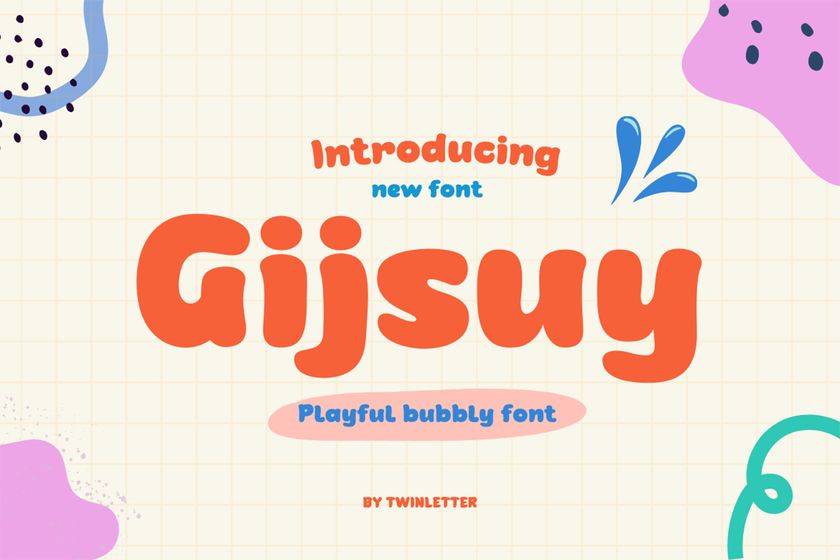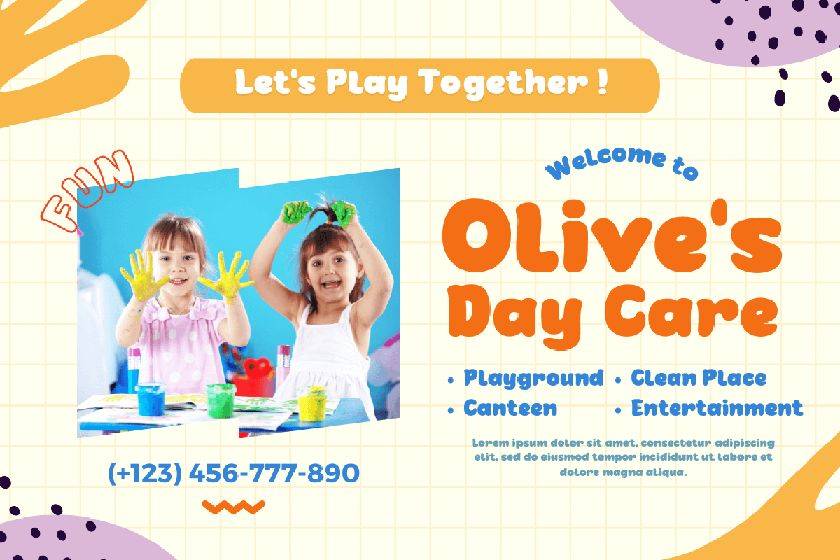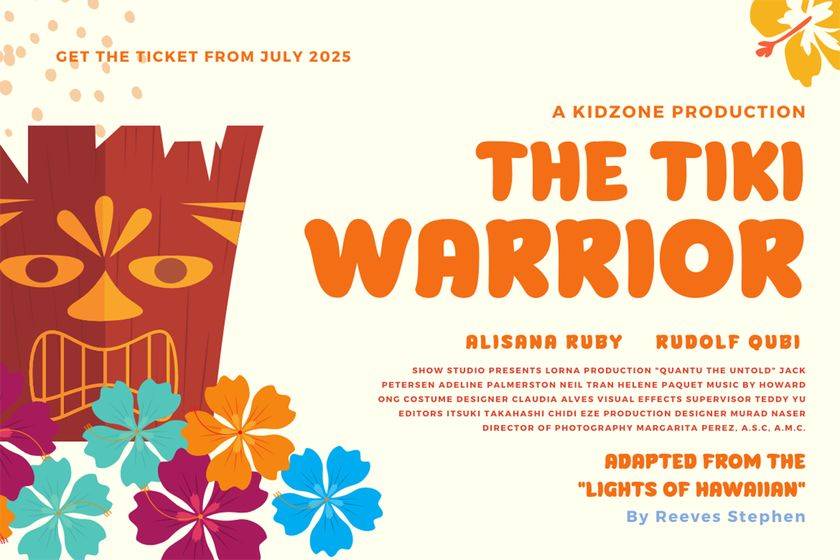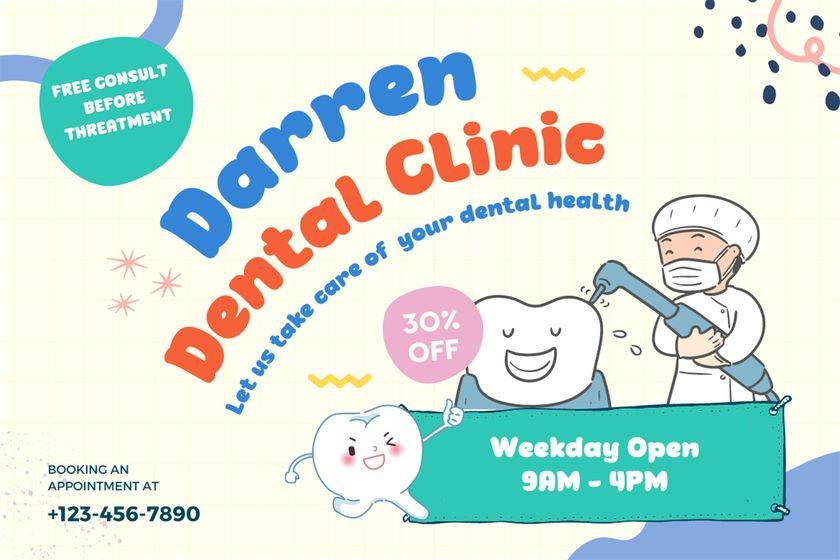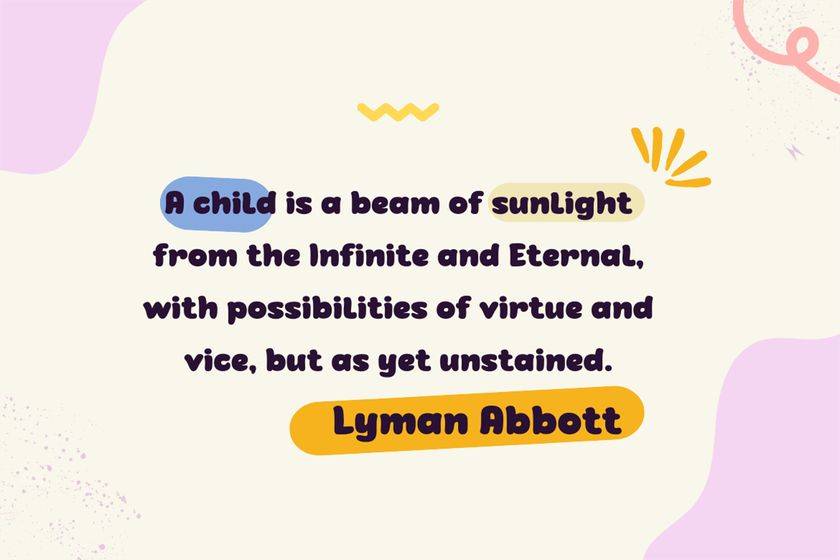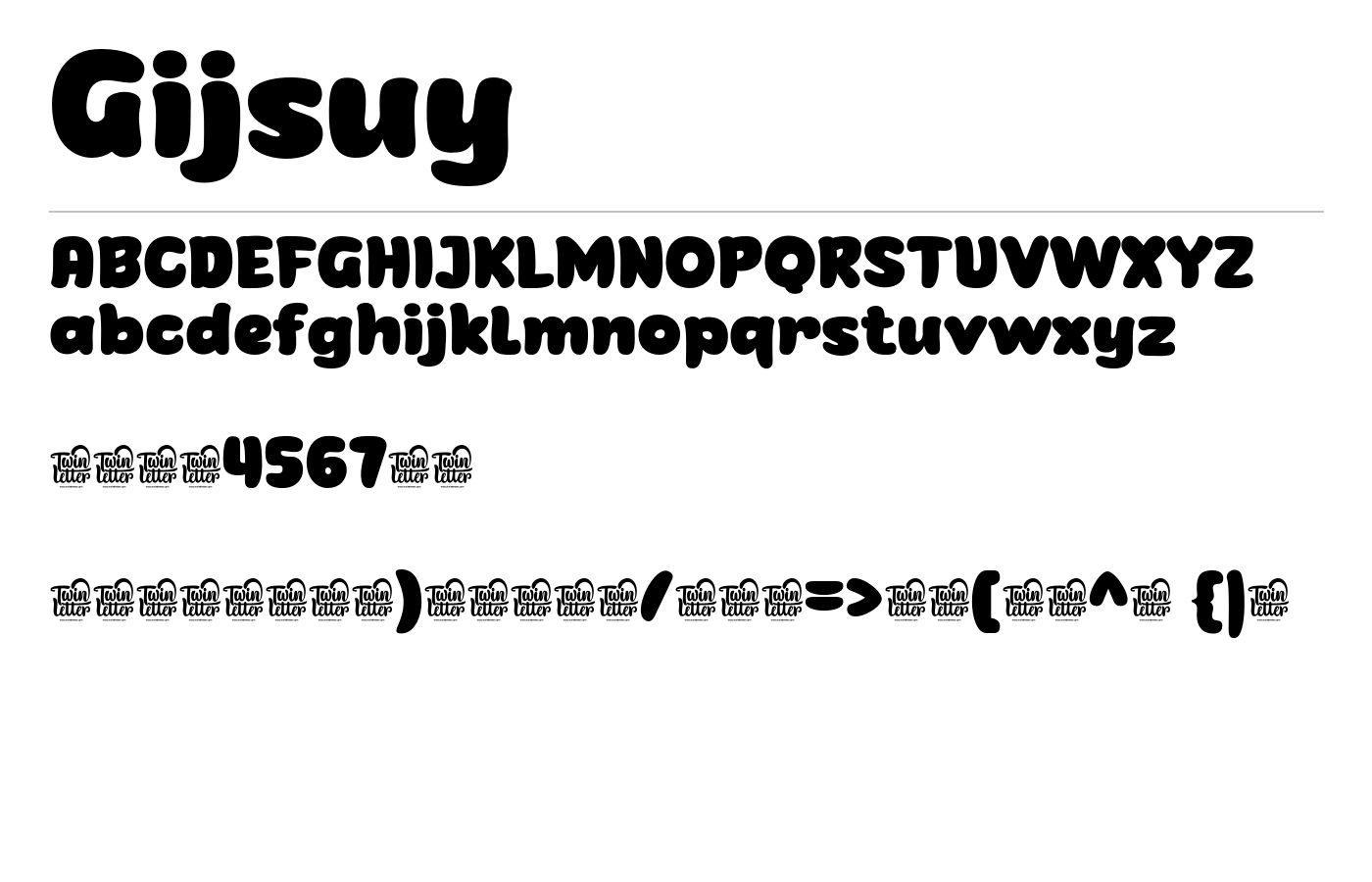
Gijsuy is a bold, rounded sans serif font with a playful and friendly character, featuring thick strokes and smooth curves that make it feel approachable and fun. Its high x-height and chunky letterforms enhance readability, making it ideal for branding, headlines, and casual designs where a warm, informal tone is desired. This font works beautifully in settings that want to convey creativity and cheerfulness, such as children's products, informal advertising, and social media graphics.
Gijsuy Font
About Gijsuy Font